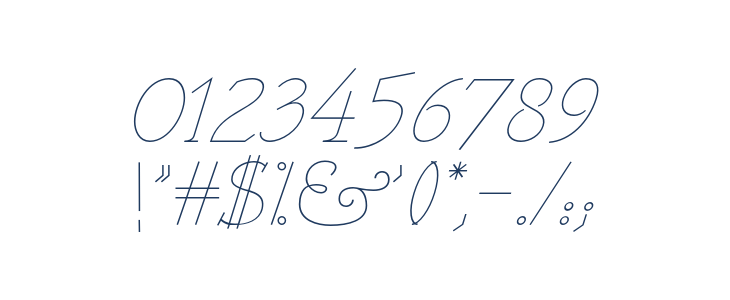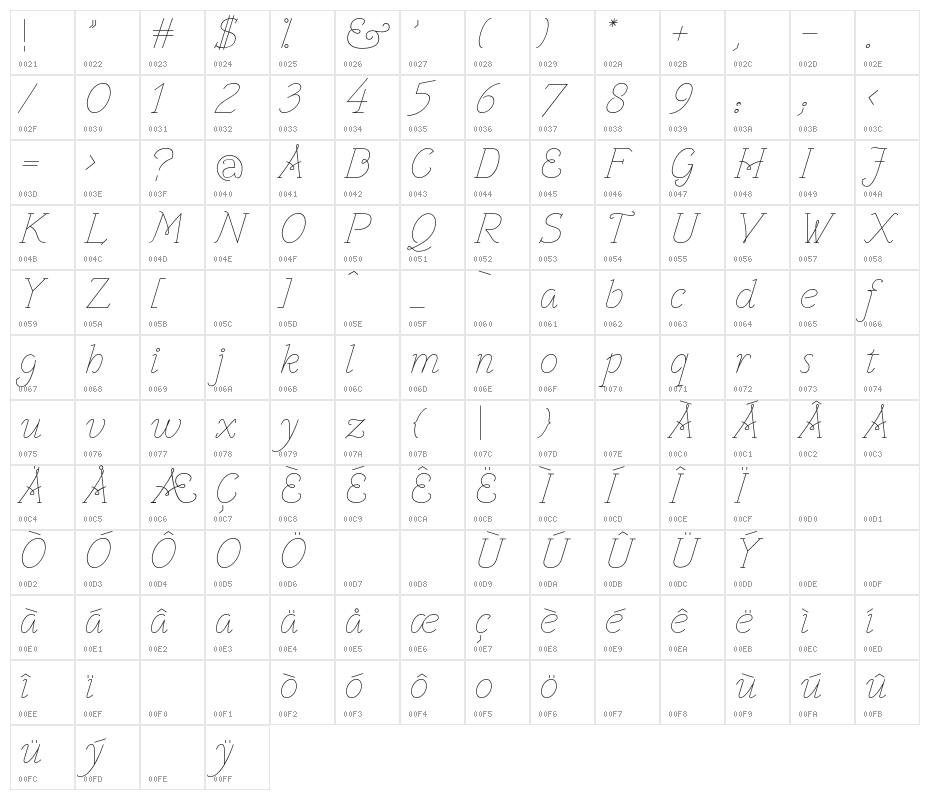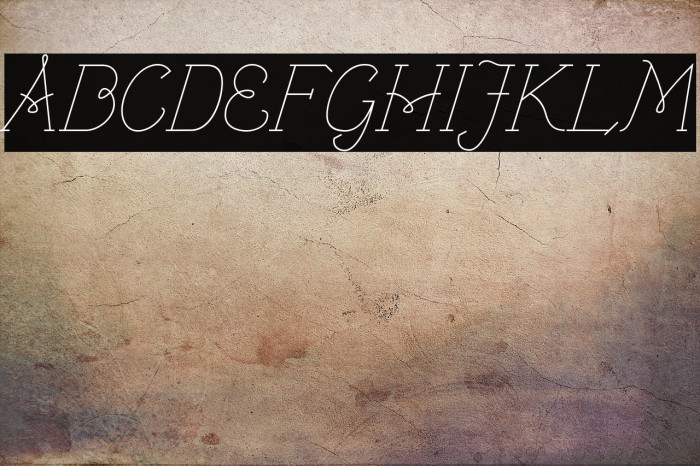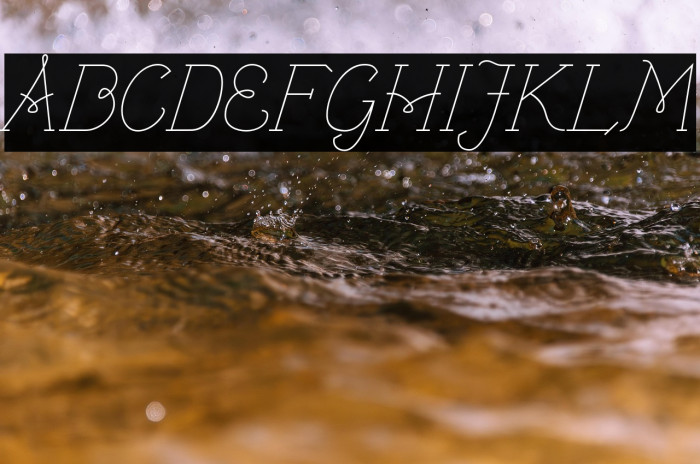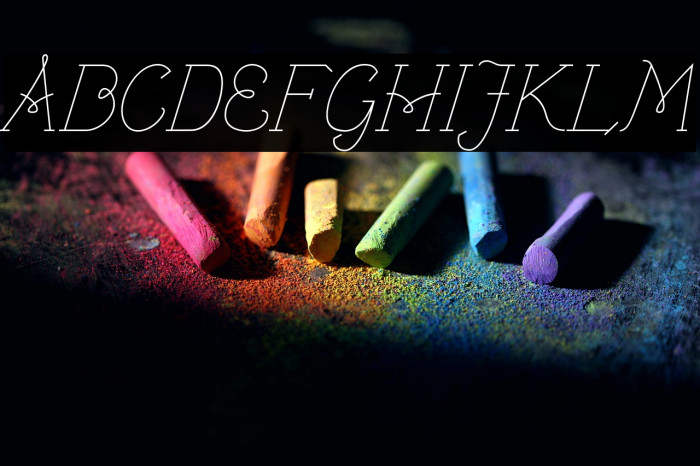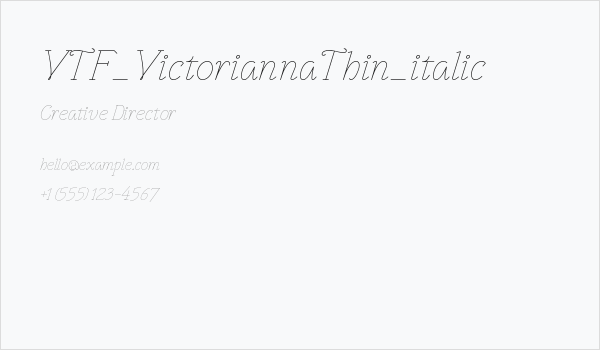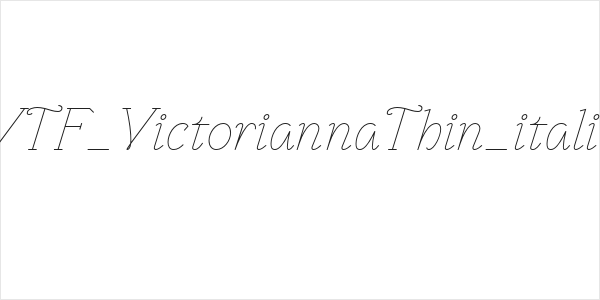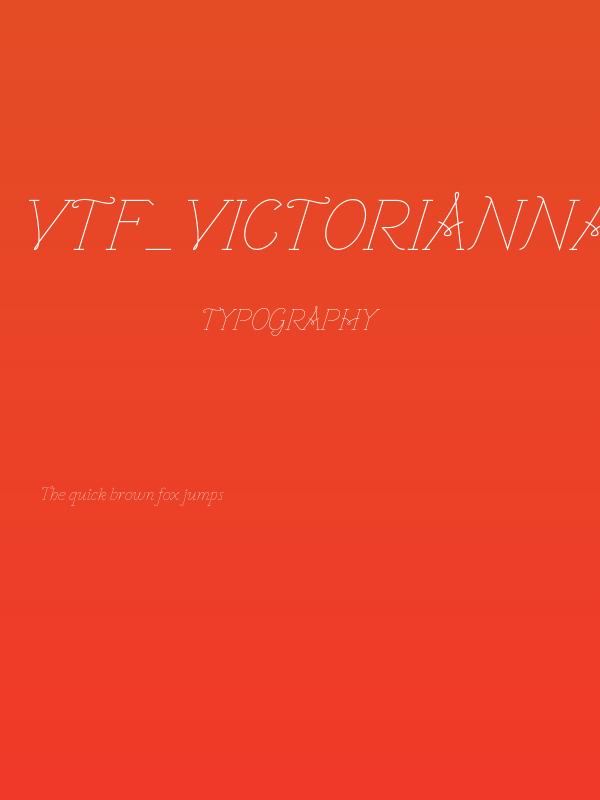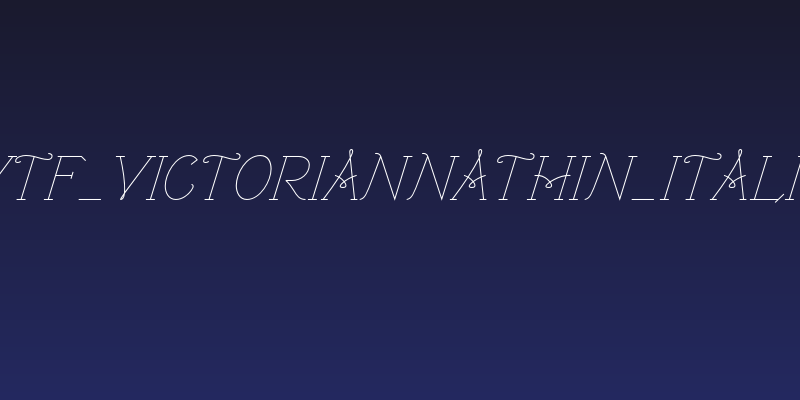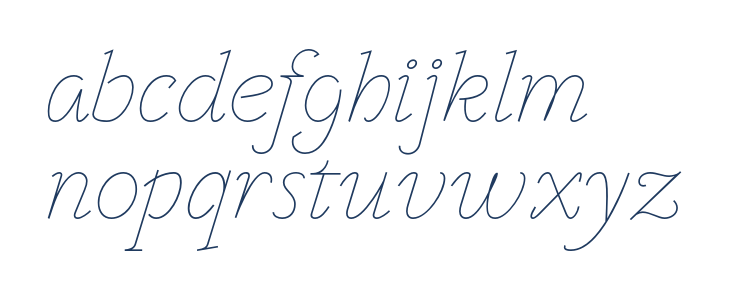
VTF_VictoriannaThin_italic Font
VTF_VictoriannaThin_italic Description
This font features an elegant and sophisticated design with a thin, delicate stroke that exudes a sense of refinement and grace. The characters are slightly slanted, adding a dynamic and fluid quality to the text. The uppercase letters are tall and slender, while the lowercase letters maintain a consistent flow with subtle curves. The numerals are designed with a similar thinness, ensuring uniformity across all characters. Special characters are crafted with the same attention to detail, making them seamlessly integrate with the rest of the font. This style is perfect for projects that require a touch of elegance and sophistication.
| Use Case | Logos, Invitations, Headlines |
| Proposed Projects | Ideal for wedding invitations, luxury branding, fashion magazines, and elegant stationery. |